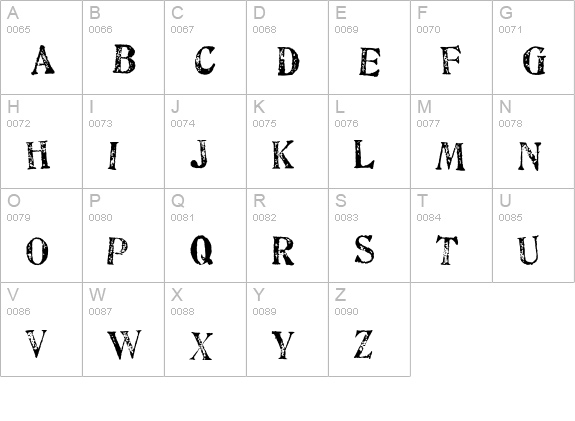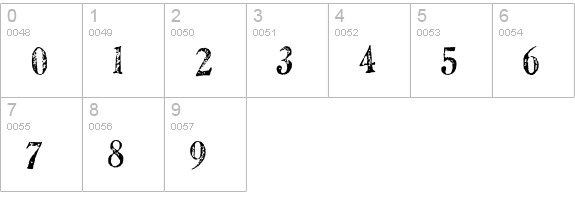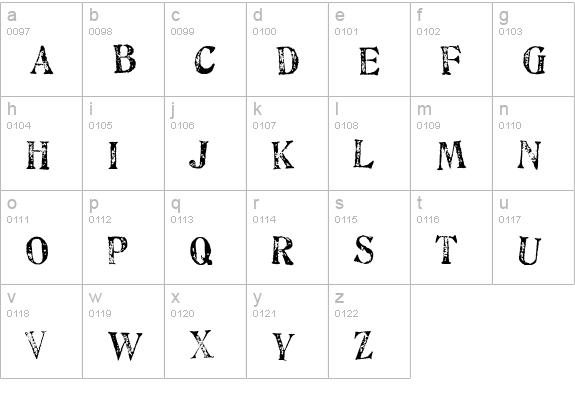
Artistamp Medium Jumbled is a balanced, medium-weight variant in the Artistamp typeface family \xE2\x80\x94 well suited to sub-headlines, navigation, and balanced editorial work.
Artistamp Medium Jumbled font is a whimsical and playful typeface that adds a unique touch to any design project. The characters appear to be jumbled and scattered, giving the text a fun and dynamic look. This font is perfect for creating eye-catching posters, greeting cards, or social media graphics. What makes Artistamp Medium Jumbled font even more appealing is that it is completely free to download at FontsMarket.com. This means you can easily add this creative font to your collection without breaking the bank. Whether you're a designer looking for a fresh font to experiment with or someone wanting to spice up their personal projects, Artistamp Medium Jumbled font is a fantastic choice. Download it today and let your creativity shine!